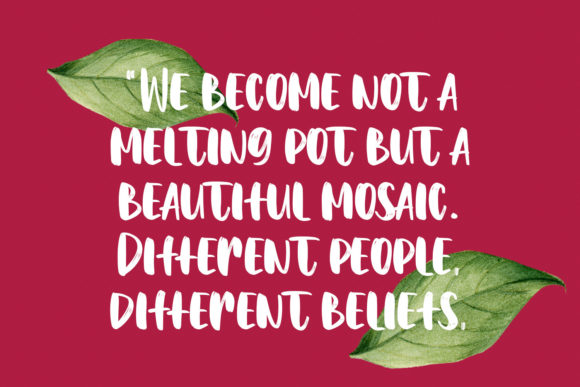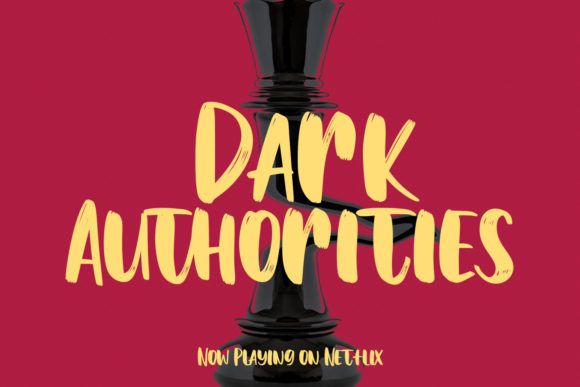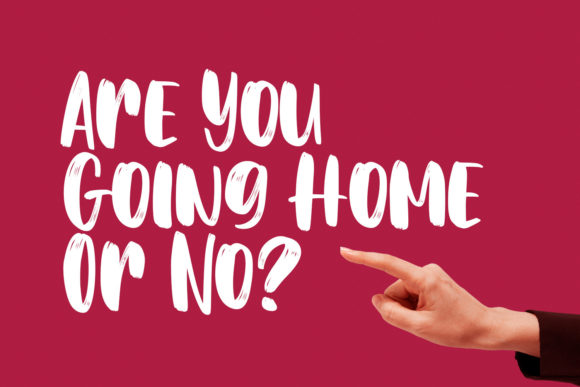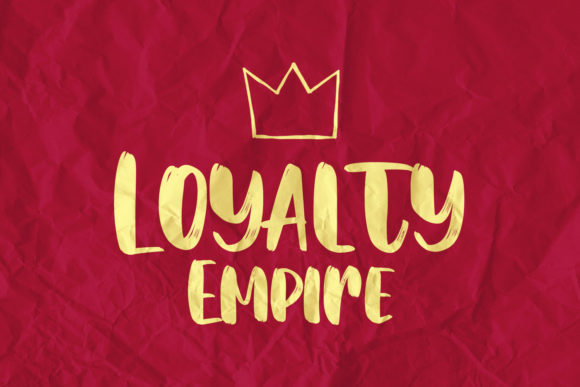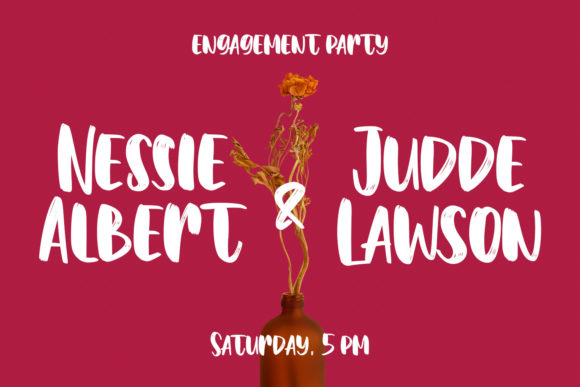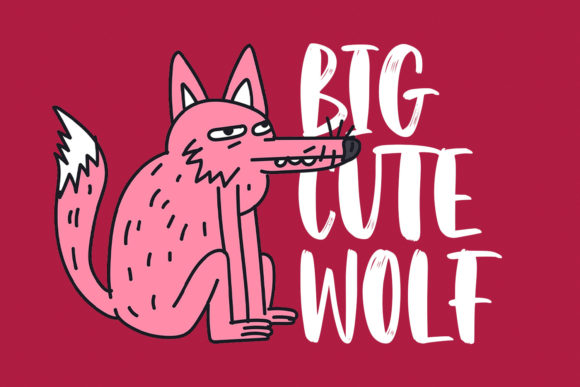
Introduction to Smithmagis Font
Have you ever been working on a creative project, pouring your heart and soul into it, only to realize that something is missing – that perfect finishing touch? For designers, this moment is all too familiar. It’s the moment when a font can make or break the entire design. That’s where the Smithmagis Font comes in – a cool, brushed, and thick lettered display font that’s sure to elevate your designs to the next level.
Whether you’re working on a graphic design project, a logo, or a poster, the Smithmagis Font is a valuable design resource that’s sure to impress. With its high-quality design and transparent background, it’s perfect for adding a touch of sophistication to your creations. And the best part? It’s available for free download, making it a must-have for any designer looking to add some creativity to their work.
Key Features of Smithmagis Font
- Unique, modern script font with a transparent background, perfect for adding a touch of elegance to your designs.
- Designed to be highly legible, even at small font sizes, making it ideal for use in logos, titles, and other text-based designs.
- Resolution-independent, allowing it to be scaled up or down without losing its clarity and detail.
Honest Review: Smithmagis Font
I recently had the chance to work with the Smithmagis Font, and I must say it’s a high-quality design resource that can elevate any creative project. The font’s unique blend of modern and vintage elements makes it perfect for a wide range of applications, from branding to editorial design.
One of the things that stood out to me about the Smithmagis Font is its transparent background, which makes it easy to use on both light and dark backgrounds. This feature alone makes it a valuable addition to any designer’s toolkit.
Here are some of the things that work well with the Smithmagis Font:
- High-quality design with crisp lines and smooth curves ✨
- Wide range of applications, from branding to editorial design ✨
- Transparent background for easy use on any background ✨
- May not be suitable for projects that require a more dramatic or bold font ⚠️
Overall, I’m impressed with the Smithmagis Font and would recommend it to designers looking for a high-quality, versatile font for their creative projects.
Using Smithmagis Font in Creative Projects
Smithmagis Font is a high-quality design resource that can be used in a variety of creative projects. You can use it in logos, brochures, posters, and more. The font features a transparent background, making it easy to customize and pair with other design elements.
Tips for Getting the Most Out of Smithmagis Font
To get the most out of Smithmagis Font, try pairing it with other high-quality design resources, such as images and graphics. You can also experiment with different font sizes and styles to create a unique and eye-catching design.
Common Use Cases for Smithmagis Font
Smithmagis Font is commonly used in creative projects, such as logos, brochures, and posters. It’s also a great choice for social media graphics, business cards, and other marketing materials.
Montserrat Font is a high-quality, sans-serif typeface perfect for creative projects that require a clean and modern look. It’s ideal for use in logos, headings, and body text. Montserrat Font is available for free download and can be used with a transparent background, making it a great design resource.
Compared to Smithmagis Font, Montserrat Font has a more geometric and structured feel, making it suitable for a wide range of creative projects. While Smithmagis Font has a more vintage and distressed look, Montserrat Font offers a more contemporary aesthetic.
Great Vibes Font is a beautiful, handwritten typeface that’s perfect for creative projects that require a touch of elegance and sophistication. It’s ideal for use in invitations, quotes, and other design elements where a personal touch is needed. Great Vibes Font is available for free download and can be used with a transparent background, making it a great design resource.
Yes, Smithmagis Font is designed to work seamlessly with transparent backgrounds, making it an ideal choice for creative projects that require a high level of design flexibility.